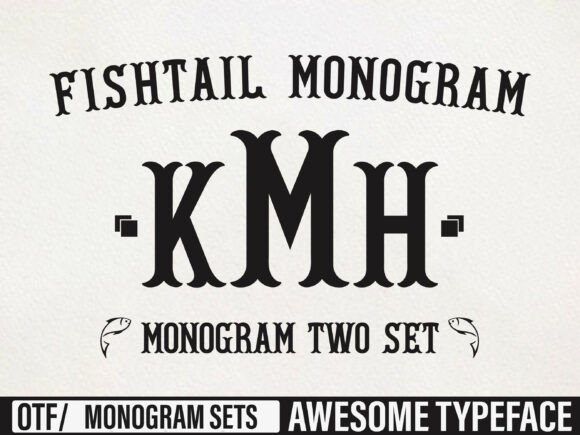
Fishtail Monogram Font: Elevate Your Designs with Elegance and Uniqueness
The Fishtail Monogram Font is a stylish and eye-catching typeface that has gained popularity among designers and crafters alike. Its unique design adds a touch of elegance and uniqueness to any design or craft idea, making it perfect for various creative projects. In this article, we’ll explore the features and benefits of the Fishtail Monogram Font, as well as provide tips on how to incorporate it into your designs.
What is Fishtail Monogram Font?
The Fishtail Monogram Font is a decorative typeface characterized by its distinctive fishtail-shaped flourishes. The font features a classic monogram style with a modern twist, making it suitable for a wide range of applications, from wedding invitations and stationery to logos and branding materials.
Key Features of Fishtail Monogram Font
- Unique Design: The fishtail-shaped flourishes add a touch of elegance and sophistication to any design.
- Versatile: The font is suitable for various creative projects, including wedding invitations, stationery, logos, and branding materials.
- High-Quality: The font is designed with high-quality craftsmanship, ensuring crisp and clear lines.
Benefits of Using Fishtail Monogram Font
The Fishtail Monogram Font offers several benefits to designers and crafters. Its unique design allows you to create eye-catching and memorable designs that stand out from the crowd. The font’s versatility makes it suitable for various applications, from formal events to business branding. Additionally, the font’s ease of use and high-quality craftsmanship make it a valuable addition to any designer’s toolkit.
Creative Ways to Use Fishtail Monogram Font
The Fishtail Monogram Font can be used in a variety of creative ways to add a touch of elegance and uniqueness to your designs. Here are a few ideas:
- Wedding Invitations: Use the font to create beautiful and elegant wedding invitations that set the tone for the big day.
- Stationery: Add a touch of sophistication to your stationery with the Fishtail Monogram Font.
- Logos and Branding: Use the font to create unique and memorable logos and branding materials for businesses and organizations.
- Crafting: Incorporate the font into your crafting projects, such as scrapbooking and card-making.
Tips for Using Fishtail Monogram Font
Here are a few tips for using the Fishtail Monogram Font effectively:
- Pair with Simple Fonts: Pair the Fishtail Monogram Font with simple fonts to create contrast and visual interest.
- Use for Headlines: Use the font for headlines and titles to add a touch of elegance and sophistication.
- Experiment with Colors: Experiment with different colors to find the perfect combination that complements your design.
The Fishtail Monogram Font is a stylish and eye-catching typeface that is perfect for various creative projects. Its unique design adds a touch of elegance and uniqueness to any design or craft idea. With its versatility, ease of use, and high-quality craftsmanship, the Fishtail Monogram Font is a valuable addition to any designer’s toolkit.
- Q: What is the Fishtail Monogram Font?
A: The Fishtail Monogram Font is a decorative typeface characterized by its distinctive fishtail-shaped flourishes.
- Q: What can I use the Fishtail Monogram Font for?
A: The font is suitable for various creative projects, including wedding invitations, stationery, logos, and branding materials.